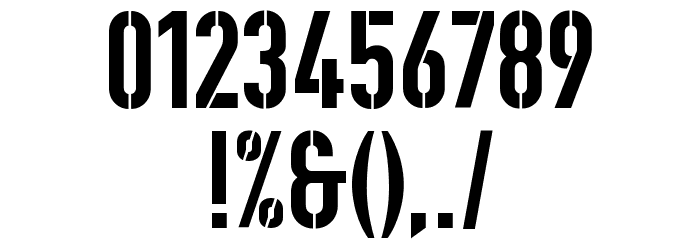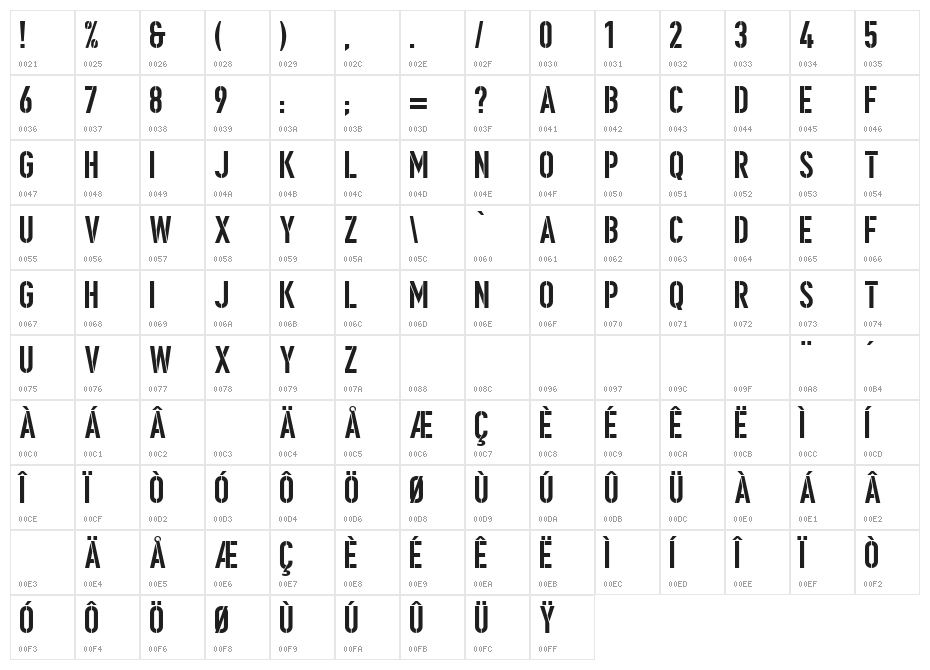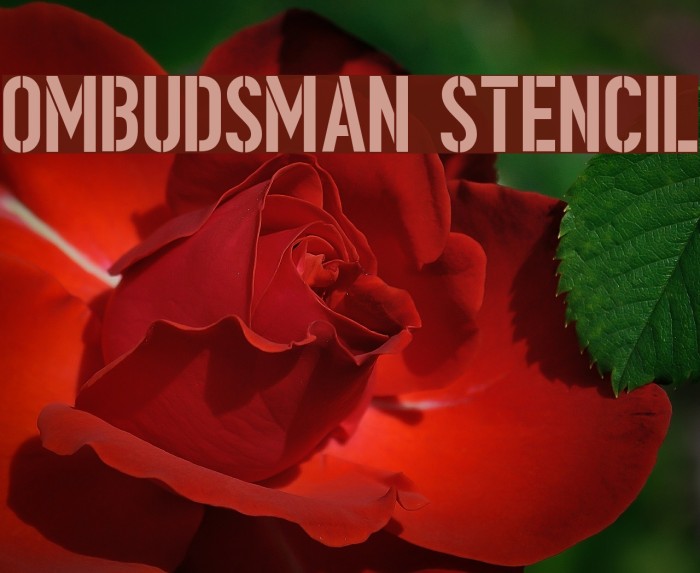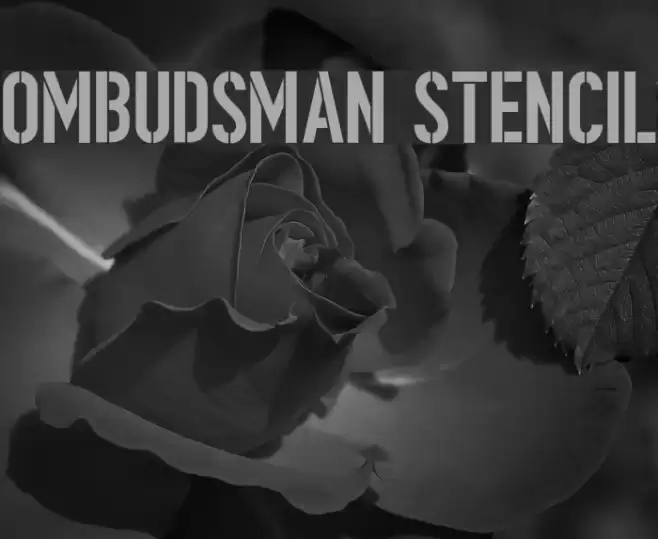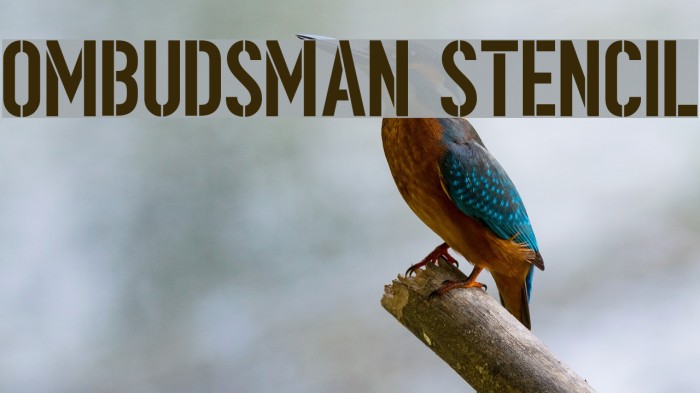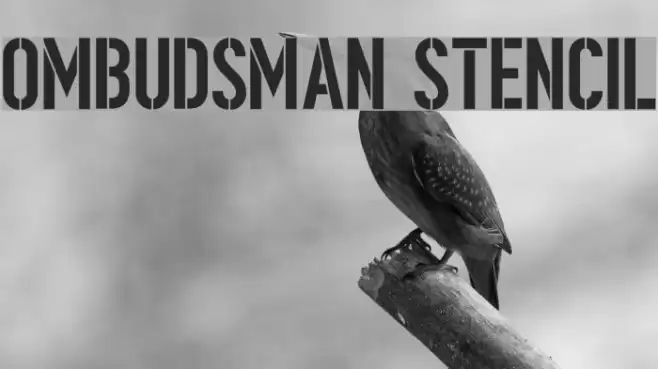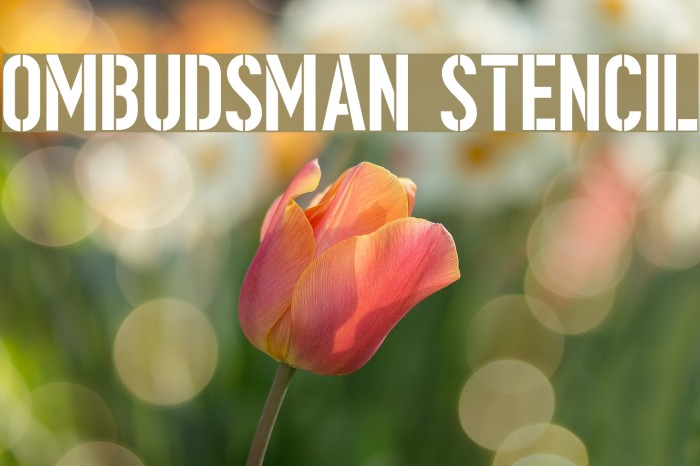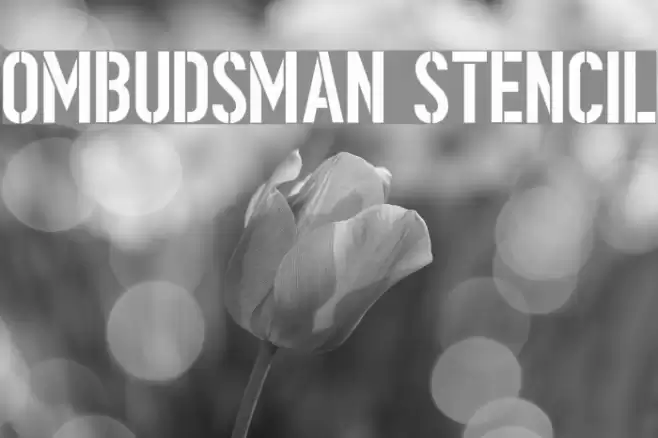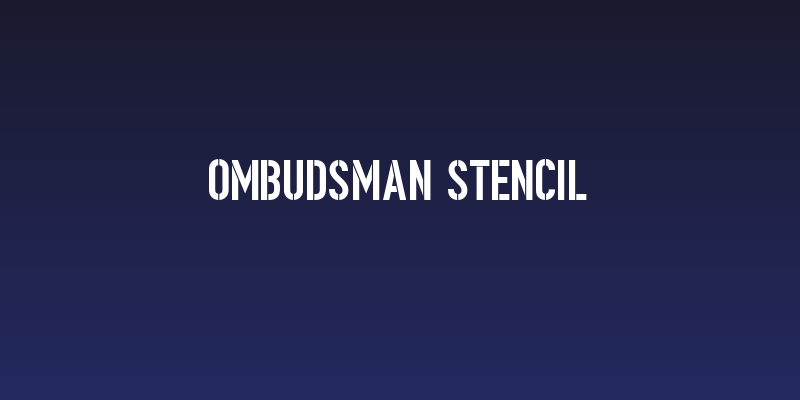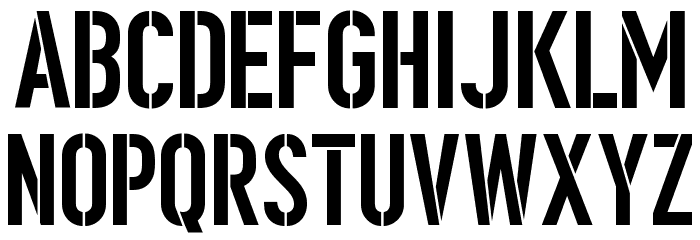
Ombudsman Stencil Font
Ombudsman Stencil Description
This font features a bold, stencil-like design with strong geometric shapes and clear cutouts that give it a distinctive industrial appearance. The uppercase letters are prominent and commanding, making it ideal for attention-grabbing headlines. The numbers and special characters maintain the same bold style, ensuring consistency across all text elements. The font's design is reminiscent of military or industrial stencils, providing a rugged and utilitarian feel. Its high contrast and sharp edges make it stand out, while the stencil gaps add a unique touch that enhances its visual interest.
Overall StyleIndustrial, Modern
Use CaseHeadlines, Logos, Signage
Proposed ProjectsThis font is perfect for projects that require a strong, industrial look, such as posters, signage, branding for rugged products, or any design needing a bold statement.